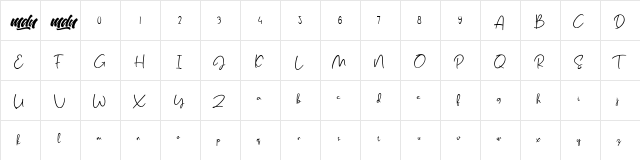
Design Context for Salmon Script Typeface
Salmon Script brings a calligraphic fluidity to the page — its connecting strokes and expressive curves give it an unmistakably human quality.
Font Pairing: Combine Salmon Script with a simple geometric sans for maximum contrast — the tension between flowing curves and clean structure is a classic typographic pairing.
Pro Tip: Pair Salmon Script with a clean sans-serif for supporting text. The contrast between fluid script and geometric structure creates an elegant typographic hierarchy.